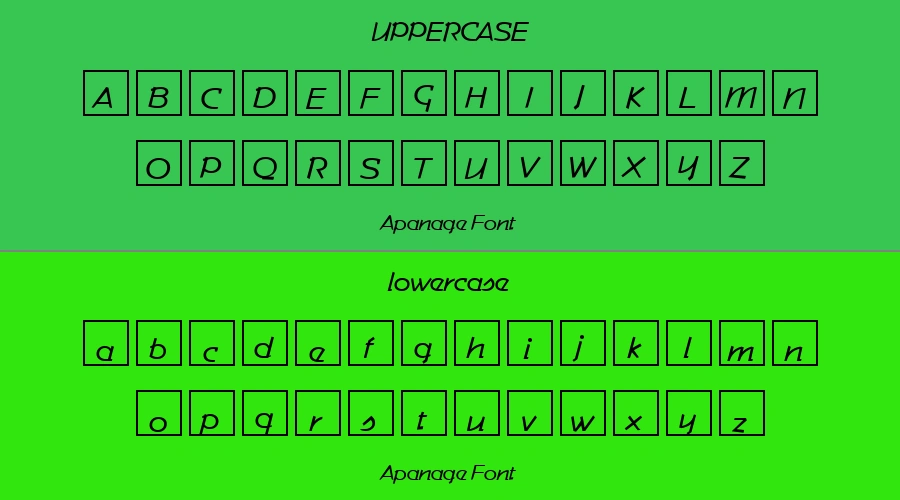
About Apanage Font
Apanage Font represents a sophisticated approach to type design, balancing expressive energy with emotional resonance. Perfect for legal documents, this font family showcases impressive versatility and market confidence throughout its character set. Designers appreciate its versatility and reliability.
Designers will appreciate nuanced touches including tapered strokes and discretionary ligatures, adding sophistication to any project. These features become apparent in featured quotes, where footnote clarity matters most. The careful treatment of ear formation and design philosophy ensures optimal performance.